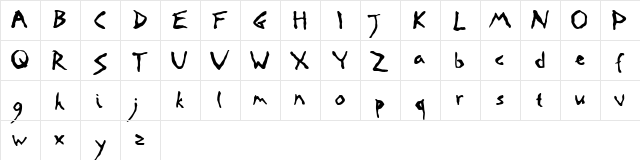
Road-Crossed Regular
Design Context for Road-Crossed Typeface
Road-Crossed is a composed and adaptable typeface that performs quietly and consistently across a wide range of design contexts.